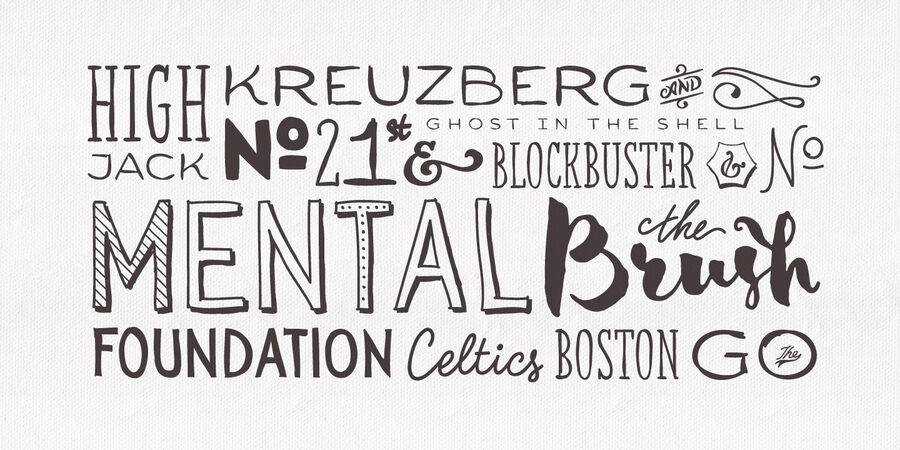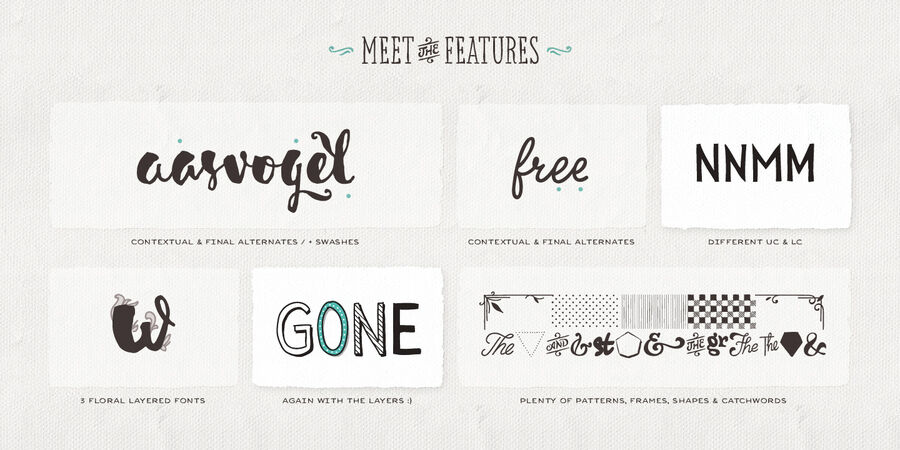
About Sensa WildSensa font is a handmade typeface family consisting of 21 fonts. Among other script fonts, this one is divided into 6 subfamilies, each contributing to its wide range of visual power – Sensa Brush, Sensa Pen, Sensa Wild, Sensa Sans, Sensa Serif and Sensa Goodies. Only your “brush” is the limit. Pick any of the Sensa fonts as a leading and the rest of the fonts can accompany it with ease. To work together in all possible combinations, all fonts in this package are created with that simple idea in mind. The Sensa font is applicable for almost every design project – from advertising, packaging, editorial and branding, to web and screen projects. For beauty and tender sensation or for more male and strong communication—you have a wide selection. Cyrillic is supported. 2 Sensa fonts available FREE. OpenType Features: Stylistic Alternates, Contextual alternates, Swashes, 1–3 Localised Forms. The typeface was designed by Fontfabric team in 2015-2018.